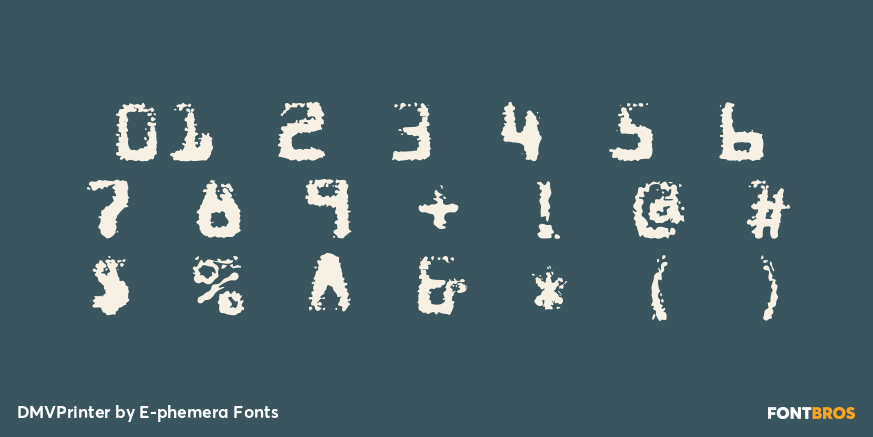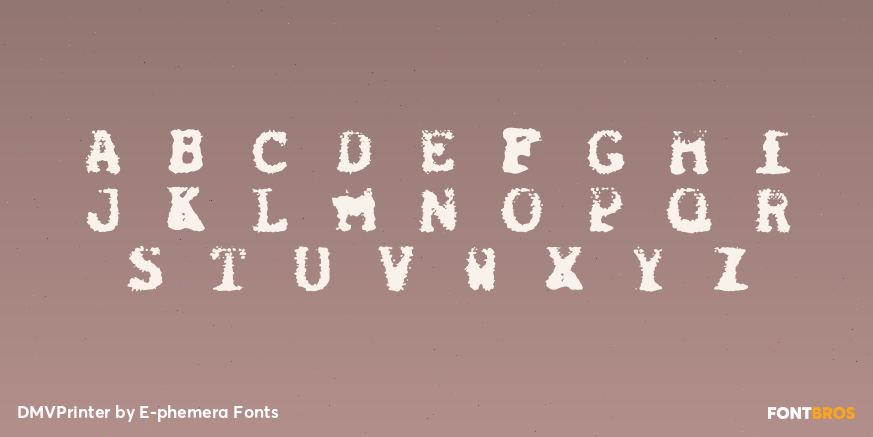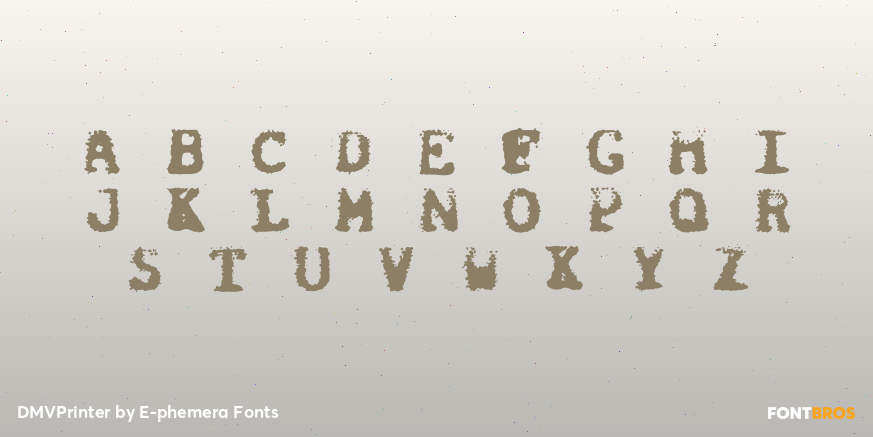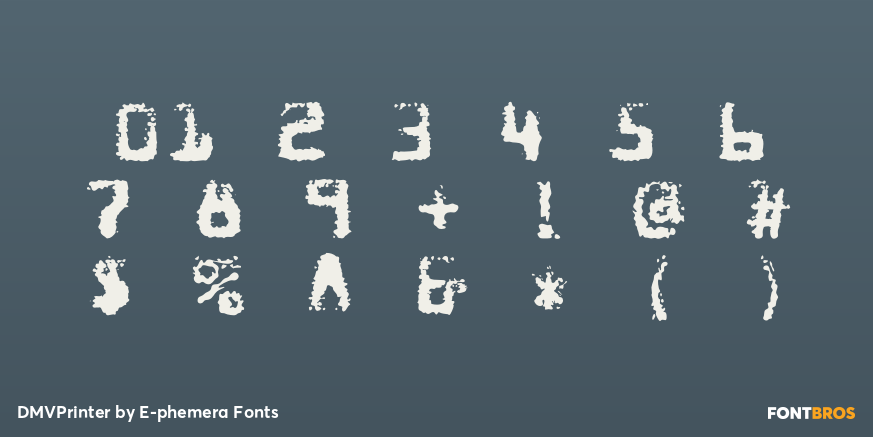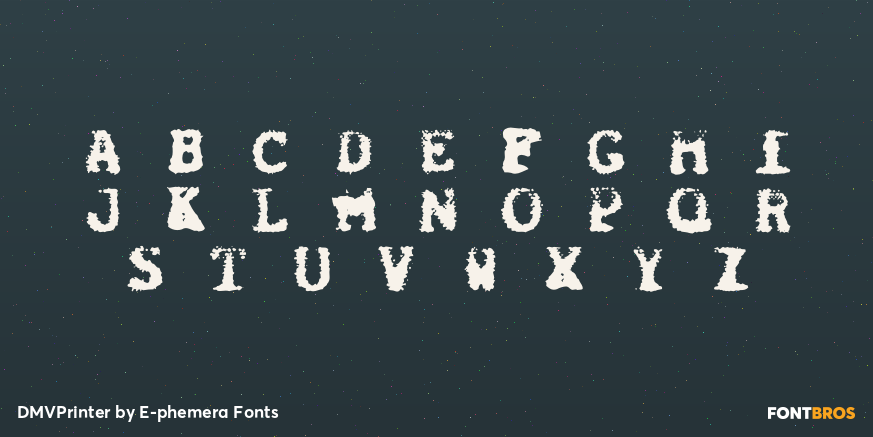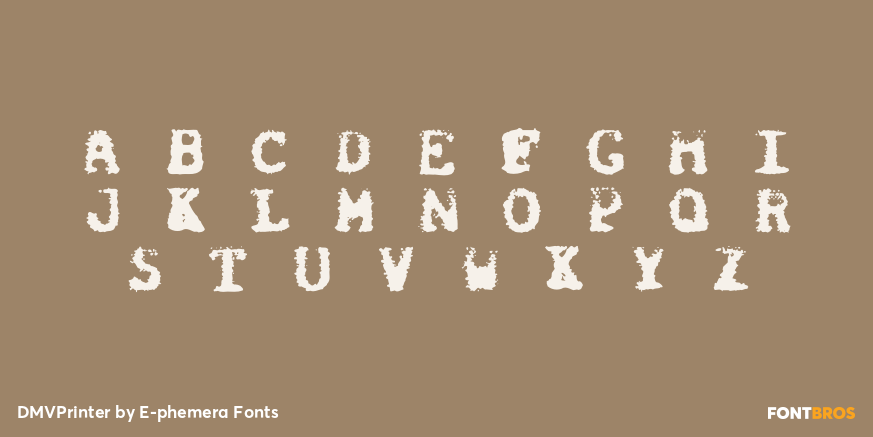
DMVPrinter
Font Family by E-phemera Fonts
This font is a replica of the printer used by the California Department of Motor Vehicles, and other state organizations. It was developed so I could make a more authentic prop automobile registration.